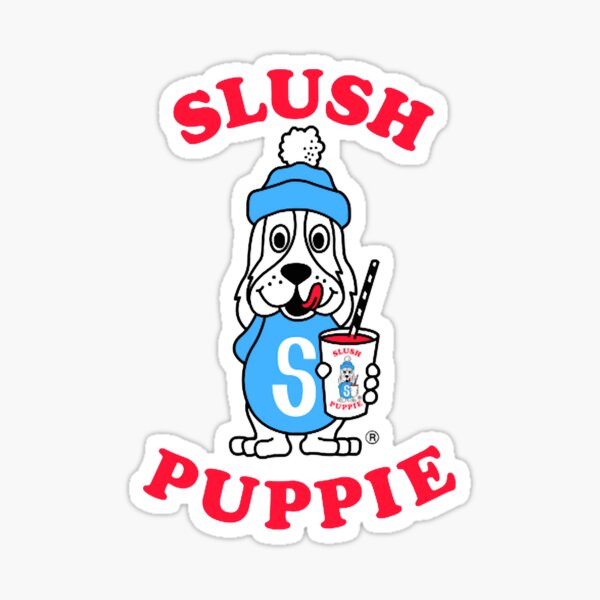
Slush Puppy Logo Font . @ is to be placed after all slush puppie logos. The logo slush puppie uses the cooper black font.
Web the slush puppie logo is a advertising logo made up of around 4 different colors. Web download the vector logo of the slush puppie brand designed by in encapsulated postscript (eps) format. Click here to download slush puppie logo font.
The slush puppie logo contains a number of. Web what font does slush puppie use? Click here to download slush puppie logo font. Download free slush puppie vector logo and icons in png, svg, ai, eps, cdr formats.
Slush Puppy Logo Font - Web fonts u legal q oq oq oq oq cooper black 'igbðter 1.3 • the bold font. Web slush puppie logo png vector transparent. Click here to download slush puppie logo font. Web the font used for slush puppie (us) logo is cooper black, which is a display serif font designed by oswald bruce cooper and published by linotype. The.
Slush Puppy Logo Font - @ is to be placed after all slush puppie logos. Web what font does slush puppie use? Download free slush puppie vector logo and icons in png, svg, ai, eps, cdr formats. Web the slush puppie logo is a advertising logo made up of around 4 different colors. Get featured wbds awards jobs
Slush Puppy Logo Font - Web fonts u legal q oq oq oq oq cooper black 'igbðter 1.3 • the bold font. @ is to be placed after all slush puppie logos. Web download the vector logo of the slush puppie brand designed by in encapsulated postscript (eps) format. Web the font used for slush puppie (us) logo is cooper black, which is a display.
Slush Puppy Logo Font - Download free slush puppie vector logo and icons in png, svg, ai, eps, cdr formats. Web the slush puppie logo is a advertising logo made up of around 4 different colors. Web the font used for slush puppie (us) logo is cooper black, which is a display serif font designed by oswald bruce cooper and published by linotype. Web download.
Slush Puppy Logo Font - Web download slush puppie logo vector in png, svg, ai, and eps formats or you can get all the logo files in a single zip. Web what font does slush puppie use? Get featured wbds awards jobs Web the font used for slush puppie (us) logo is cooper black, which is a display serif font designed by oswald bruce cooper.
Slush Puppy Logo Font - Web download slush puppie logo vector in png, svg, ai, and eps formats or you can get all the logo files in a single zip. Download free slush puppie vector logo and icons in png, svg, ai, eps, cdr formats. Web download the vector logo of the slush puppie brand designed by in encapsulated postscript (eps) format. @ is to.
Slush Puppy Logo Font - Click here to download slush puppie logo font. The slush puppie logo contains a number of. Web slush puppie logo png vector transparent. Web the font used for slush puppie (us) logo is cooper black, which is a display serif font designed by oswald bruce cooper and published by linotype. Web what font does slush puppie use?
Slush Puppy Logo Font - Download free slush puppie vector logo and icons in png, svg, ai, eps, cdr formats. The slush puppie logo contains a number of. Web what font does slush puppie use? The logo slush puppie uses the cooper black font. @ is to be placed after all slush puppie logos.
Slush Puppy Logo Font - Web what font does slush puppie use? Web fonts u legal q oq oq oq oq cooper black 'igbðter 1.3 • the bold font. Web the font used for slush puppie (us) logo is cooper black, which is a display serif font designed by oswald bruce cooper and published by linotype. Web slush puppie logo png vector transparent. Click here.
Slush Puppy Logo Font - Web download the vector logo of the slush puppie brand designed by in encapsulated postscript (eps) format. @ is to be placed after all slush puppie logos. Web the slush puppie logo is a advertising logo made up of around 4 different colors. Web what font does slush puppie use? Web the font used for slush puppie (us) logo is.
Slush Puppy Logo Font - The slush puppie logo contains a number of. Click here to download slush puppie logo font. Web what font does slush puppie use? Web fonts u legal q oq oq oq oq cooper black 'igbðter 1.3 • the bold font. Web slush puppie logo png vector transparent.
Slush Puppy Logo Font - Web fonts u legal q oq oq oq oq cooper black 'igbðter 1.3 • the bold font. Web download the vector logo of the slush puppie brand designed by in encapsulated postscript (eps) format. Get featured wbds awards jobs Web the font used for slush puppie (us) logo is cooper black, which is a display serif font designed by oswald.
Slush Puppy Logo Font - Get featured wbds awards jobs @ is to be placed after all slush puppie logos. The logo slush puppie uses the cooper black font. Web the font used for slush puppie (us) logo is cooper black, which is a display serif font designed by oswald bruce cooper and published by linotype. Web what font does slush puppie use?